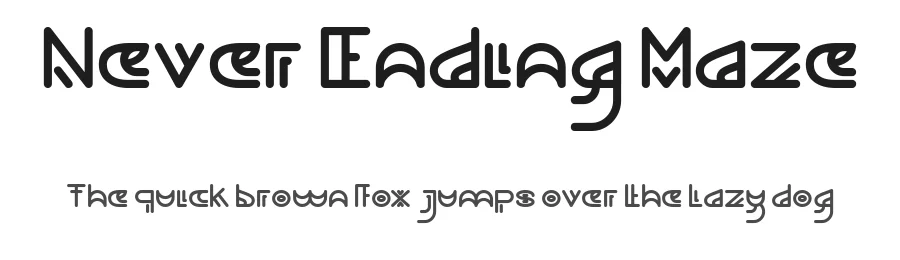
About Complices 007 Font
Complices 007 is a decorative font designed by Tony'up. It includes 93 glyphs, a bold weight, TTF (TrueType) format, and 105 languages. Complices 007 is free to download; check the license details on this page before commercial use. Decorative fonts like Complices 007 work best for logos, posters, packaging, and standout headlines.
Complices 007 Font is a decorative font that shines as a display or heading face. Pair it with a clean sans-serif or serif font for body text β the contrast creates a clear hierarchy while the two styles stay balanced and easy to read.
Complices 007 Font
by Tony'up
Complices 007 Font is a decorative typeface by Tony'up, ideal for logos, invitations, branding, and creative projects.